The Best Aesthetics for YouTube Thumbnails fonts in 2026
In the hyper-competitive world of content creation, your thumbnail is the “front door” to your video. You could have the most engaging 10-minute edit in the world, but if nobody clicks, nobody sees it. As we move through the year, the visual language of the platform has shifted. Creators are moving away from generic, thin text toward high-impact YouTube Thumbnail Fonts that command attention even on the smallest smartphone screens.
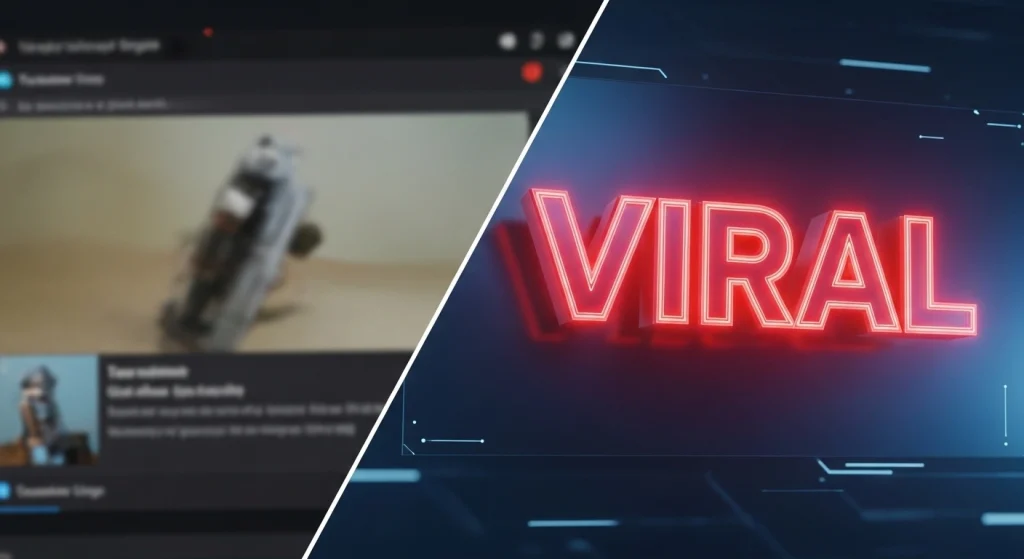
Why Typography Matters for Your CTR
Google’s algorithms and human psychology both agree on one thing: clarity is king. A “Helpful Content” approach to thumbnails means making it immediately obvious what the viewer will gain from clicking. Using aesthetic and professional YouTube Thumbnail Fonts ensures that your message isn’t lost in the visual noise of the “Recommended” sidebar. In 2026, we are seeing a trend toward “Soft Brutalism”—typography that is bold and blocky but refined with smooth edges and intentional spacing.
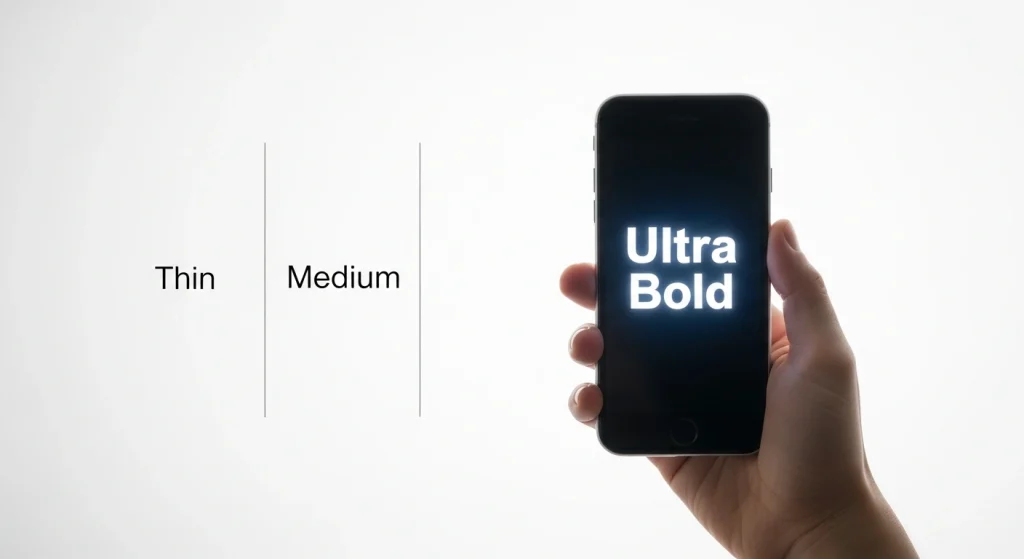
Top YouTube Thumbnail Fonts for 2026
To help you stay ahead of the curve, here are the most effective fonts currently dominating the platform.
1. Bebas Neue: The All-Caps King
Bebas Neue remains the gold standard for a reason. Its clean, condensed lines allow you to fit longer words into tight spaces without sacrificing size. It is the “safe” choice for tech channels and business gurus because it feels authoritative yet modern.
2. Anton: High-Voltage Impact
If you need your text to “scream” at the viewer, Anton is your go-to. It features extremely heavy strokes and a tall x-height. Because the letters are so thick, it handles outlines, drop shadows, and “glow” effects better than almost any other typeface.
3. Montserrat (Bold & Black)
For an aesthetic that feels premium and polished, Montserrat is unrivaled. It is a geometric sans-serif that looks “expensive.” Educational creators often use the ExtraBold weight to convey trust and expertise.
4. Thunder: The 2026 Trendsetter
Thunder is a condensed typeface that has taken the design world by storm this year. It offers a sophisticated, “magazine-style” aesthetic. If your channel focuses on fashion, architecture, or high-end lifestyle content, Thunder provides that sharp, cinematic look.
5. Roena: Friendly and Expressive
As “Human-Centric” design becomes more popular, Roena has emerged as a favorite for community-focused channels. It is a bold, cheerful font aesthetics that feels approachable. It works perfectly for “Storytime” videos or family vlogs.
Best Practices for Using YouTube Thumbnail Fonts
Prioritize Readability on Mobile
Over 70% of YouTube views happen on mobile devices. This means your text must be legible on a screen the size of a credit card. Avoid thin scripts or overly decorative “grunge” fonts that turn into a blur when scaled down. Stick to bold or heavy weights and keep your word count to a minimum.
Master the Art of Contrast
Your YouTube Thumbnail Fonts should “pop” against the background. If your background is busy, use a solid color text box behind your font or a heavy outer stroke. A common 2026 design trend is using a bright, “neon” text color against a dark background.
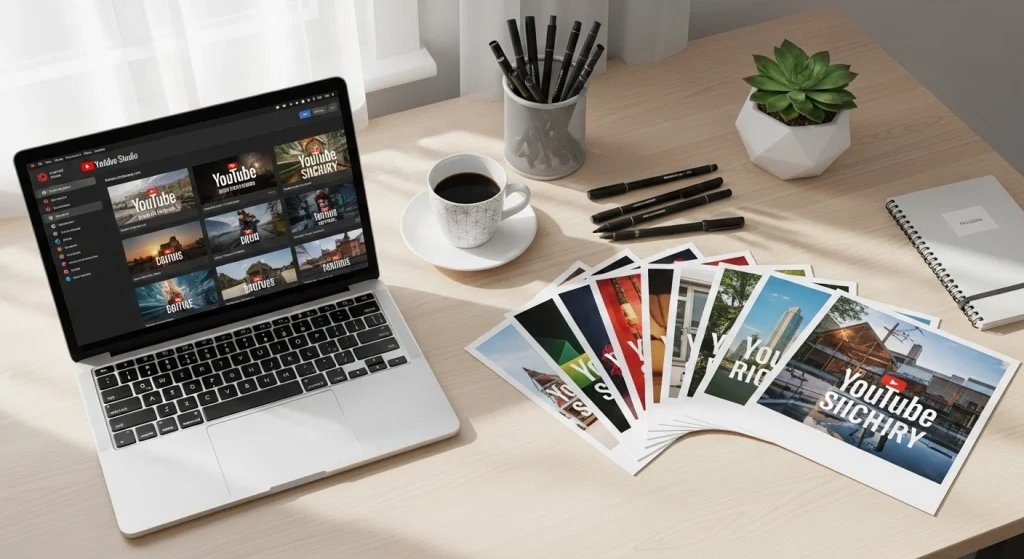
Conclusion: Elevate Your Visual Strategy
The “best” font is the one that aligns with your niche and speaks to your target audience. While Bebas Neue and Anton are timeless for their reliability, don’t be afraid to experiment with 2026 trends like Thunder or Roena to give your channel a fresh, modern edge.